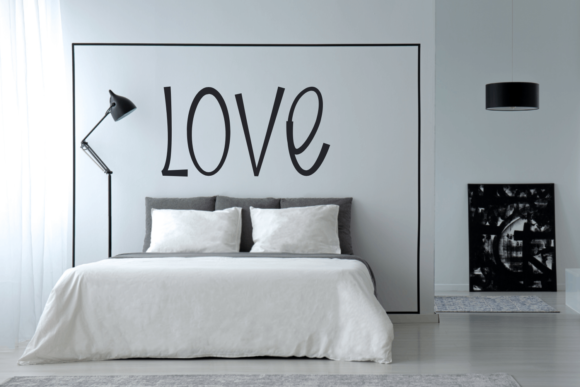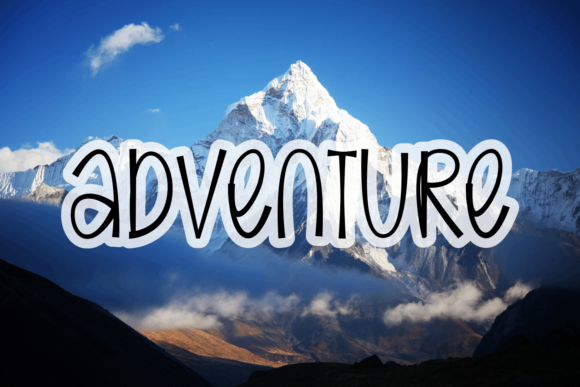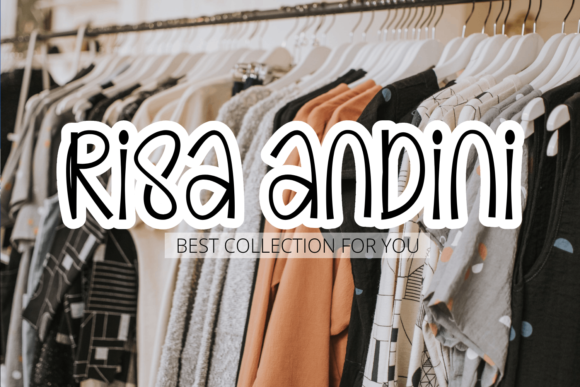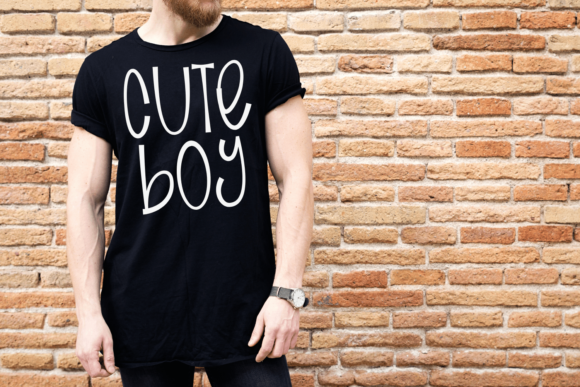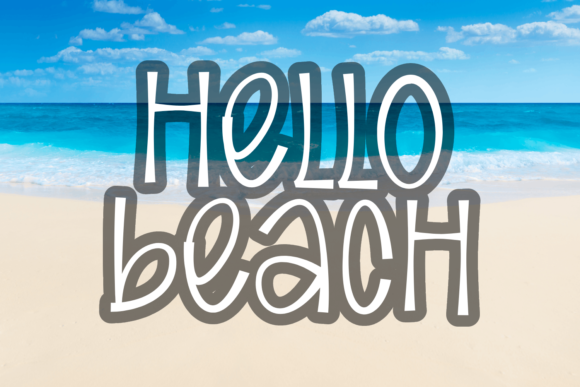
Hello California Font: The Perfect Choice for Adding a Relaxed Touch to Your Creations
Are you tired of using the same old fonts for your design projects? Look no further than the Hello California font, a simple, quirky, and adaptable handwritten font that’s perfect for adding a relaxed touch to your creations. With its informal style and casual vibe, Hello California is sure to become a go-to choice for designers and crafters alike.
What Makes Hello California Font So Special?
Hello California font is a unique and charming handwritten font that’s designed to evoke a sense of laid-back California cool. Its informal style and casual vibe make it perfect for use in a variety of design projects, from branding and packaging to scrapbooking and journaling.
One of the things that sets Hello California apart from other fonts is its quirky, hand-crafted feel. The font features a range of subtle imperfections and irregularities that give it a distinctly human touch. This makes it perfect for designers and crafters who want to add a personal touch to their work.
Key Features of Hello California Font
So what makes Hello California font so special? Here are just a few of its key features:
- Simple and Quirky Design: Hello California font features a simple, yet quirky design that’s perfect for adding a relaxed touch to your creations.
- Informal Style: The font’s informal style and casual vibe make it perfect for use in a variety of design projects, from branding and packaging to scrapbooking and journaling.
- Adaptable: Hello California font is highly adaptable, making it perfect for use in a wide range of design projects.
- Handwritten Feel: The font features a range of subtle imperfections and irregularities that give it a distinctly human touch.
Uses for Hello California Font
Hello California font is a versatile font that can be used in a wide range of design projects. Here are just a few ideas to get you started:
- Branding and Packaging: Use Hello California font to add a relaxed touch to your branding and packaging projects.
- Scrapbooking and Journaling: The font’s informal style and casual vibe make it perfect for use in scrapbooking and journaling projects.
- Signage and Displays: Hello California font is a great choice for signage and display projects, such as store signs, menus, and flyers.
- Digital Design: The font can also be used in digital design projects, such as social media graphics, blog posts, and website headers.
Why Designers and Crafters Love Hello California Font
So why do designers and crafters love Hello California font? Here are just a few reasons:
- Unique and Eye-Catching: The font’s quirky, hand-crafted feel makes it a unique and eye-catching choice for design projects.
- Easy to Read: Despite its informal style, Hello California font is easy to read, making it perfect for use in a wide range of design projects.
- Versatile: The font’s adaptability makes it perfect for use in a wide range of design projects, from branding and packaging to scrapbooking and journaling.
- High-Quality: Hello California font is a high-quality font that’s designed to deliver exceptional results.
| Font Name | Hello California Font |
| Author | Creative Zone |
In conclusion, Hello California font is a simple, quirky, and adaptable handwritten font that’s perfect for adding a relaxed touch to your creations. With its informal style and casual vibe, it’s sure to become a go-to choice for designers and crafters alike. Whether you’re working on a branding project, scrapbooking, or just want to add a personal touch to your digital designs, Hello California font is a great choice.
So why not give Hello California font a try? With its unique and eye-catching design, ease of use, and versatility, it’s sure to become a favorite in your design toolkit.